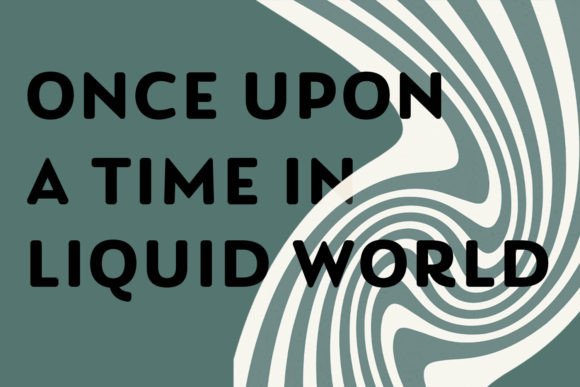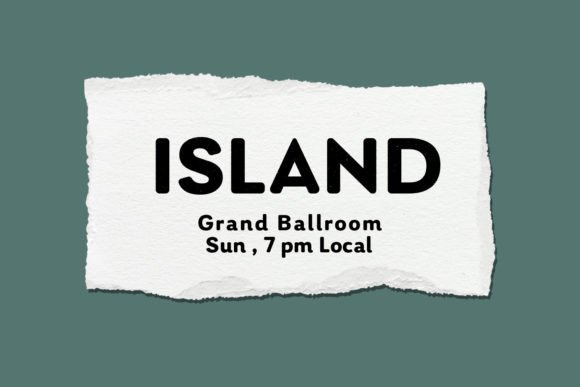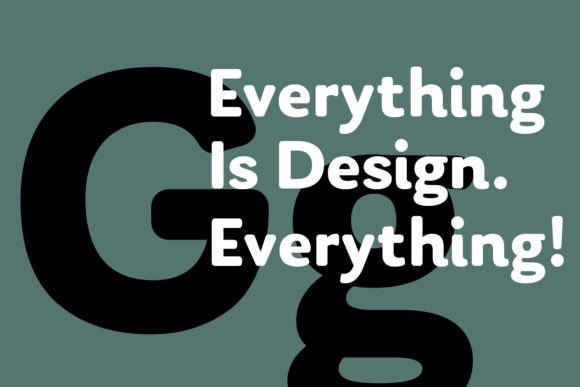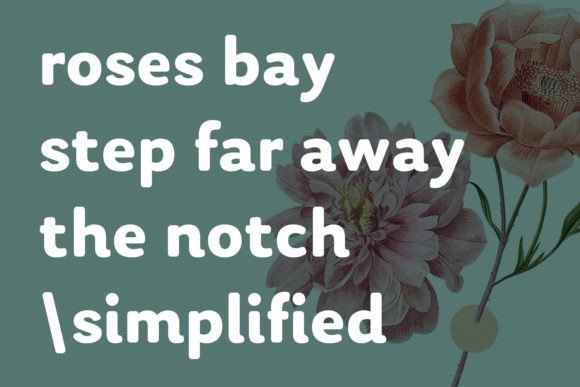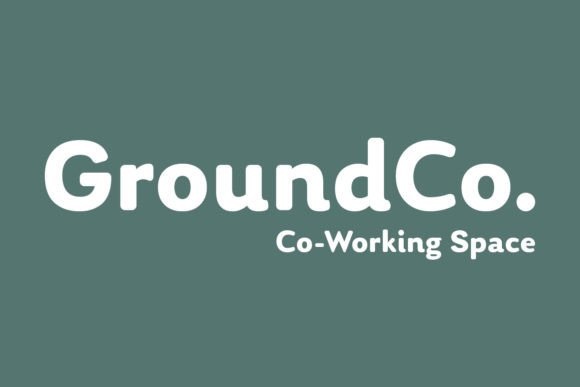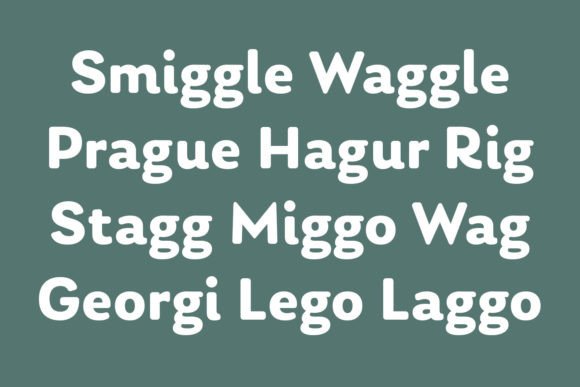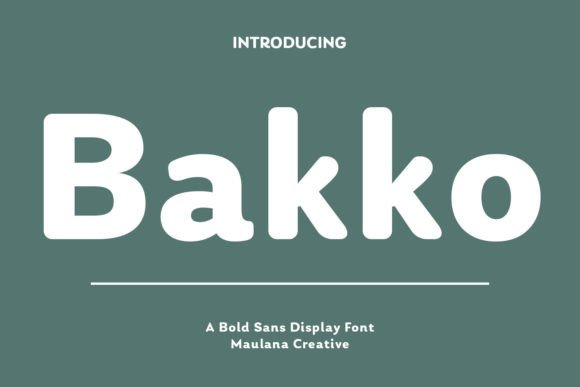
Bakko Font: Elevate Your Designs with a Modern and Cool Sans Serif Typeface
In the realm of typography, a font can make or break a design. It’s the backbone of any visual project, conveying the message, tone, and personality of the brand. For designers and crafters seeking a modern and cool sans serif font, Bakko is an exceptional choice. This versatile typeface is neat, professional, and incredibly adaptable, making it perfect for a wide range of design ideas.
What is Bakko Font?
Bakko is a contemporary sans serif font designed to cater to the needs of modern designers. Its clean lines, precise curves, and well-balanced structure make it an excellent addition to any design project. Whether you’re working on a branding campaign, a website, or a crafting project, Bakko’s neutral yet stylish appearance ensures it will complement your work without overpowering it.
Key Features of Bakko Font
- Modern and Cool Design: Bakko boasts a sleek and modern design that instantly elevates the aesthetic of your projects. Its cool and approachable vibe makes it suitable for a younger audience without compromising on professionalism.
- Sans Serif: The sans serif nature of Bakko provides a clean and minimalist look, making it highly legible across various applications, from digital screens to print materials.
- Versatility: One of Bakko’s standout features is its versatility. It can seamlessly integrate into a multitude of design contexts, including but not limited to, logos, headings, body text, and captions.
- Professional Appearance: Despite its modern and cool demeanor, Bakko maintains a professional appearance. This makes it an ideal choice for businesses and brands looking to convey a sense of reliability and sophistication.
Use Cases for Bakko Font
The adaptability of Bakko font makes it suitable for a broad spectrum of design projects. Here are some use cases where Bakko can make a significant impact:
- Branding and Logos: Use Bakko to create a modern and memorable brand identity. Its unique yet straightforward design can help your brand stand out.
- Web Design: Enhance your website’s typography with Bakko. Its readability on digital screens makes it perfect for headings, body text, and call-to-actions.
- Marketing Materials: From brochures and flyers to business cards and posters, Bakko’s professional look adds a touch of elegance and modernity to any marketing material.
- Crafting and DIY Projects: For crafters and DIY enthusiasts, Bakko can be used in various creative projects, such as custom signs, labels, and decorative items, adding a personalized and professional touch.
Why Choose Bakko Font?
In a sea of typefaces, Bakko stands out for several reasons:
- Legibility: Bakko’s design prioritizes legibility, ensuring your message is conveyed clearly and effectively.
- Aesthetic Appeal: Its modern and cool design aesthetic appeals to contemporary tastes, making your designs look fresh and engaging.
- Flexibility: Bakko can be used across different mediums and projects, providing flexibility in your design work.
Bakko font is a modern and cool sans serif typeface that brings a blend of professionalism, versatility, and aesthetic appeal to the table. Its wide range of applications makes it a valuable asset for designers and crafters alike. Whether you’re aiming to create a stunning brand identity, enhance your website’s typography, or add a professional touch to your crafting projects, Bakko is an excellent choice. Embrace the modernity and coolness of Bakko font in your next design venture and experience the difference it can make.